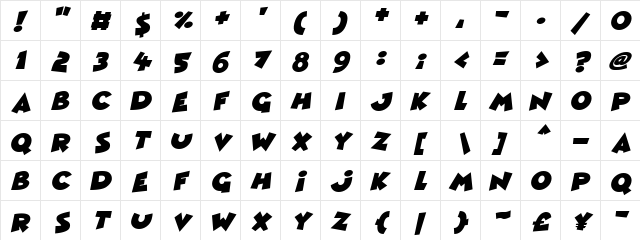
Comic Queens Italic
Design Context for Comic Queens Typeface
Comic Queens has an approachable, lighthearted character — its loose, expressive forms are well-suited to children's content, casual branding, and fun-first design. Its italic angle brings a sense of urgency and motion to the letterforms.
Font Pairing: Pairs well with a rounded or humanist sans for body copy, maintaining the friendly tone without relying on Comic Queens to carry extended reading.
Pro Tip: Use Comic Queens at larger display sizes where its expressive character can land. Pair with a clean, simple sans for body copy to maintain readability.